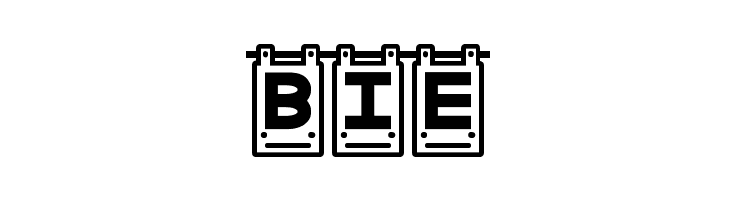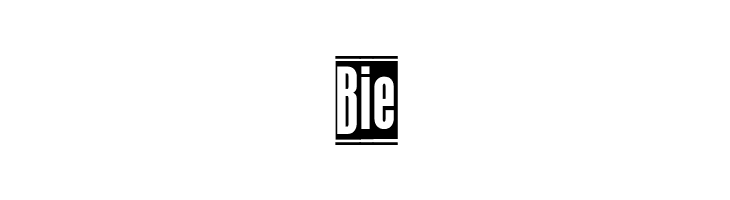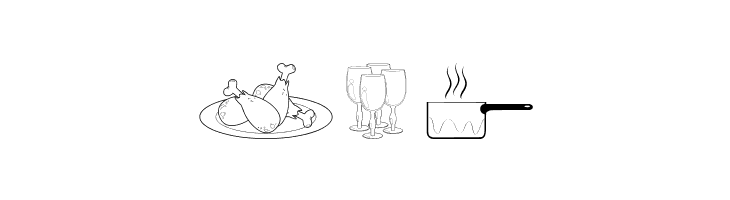
A modern, semi-bold sans-serif font with geometric precision and high legibility.
A retro digital display-inspired font with bold, blocky characters in rectangular frames.
A modern, thin-line font with geometric precision and minimalist elegance.
Hand-drawn outline icons themed around cooking and kitchen items.
A bold, distressed font with a grunge texture and rugged appearance.
A modern, geometric font with consistent stroke widths and a clean design.
A modern, geometric font with clean lines and uniform stroke width.
A sleek, modern font with geometric precision and minimalist design.